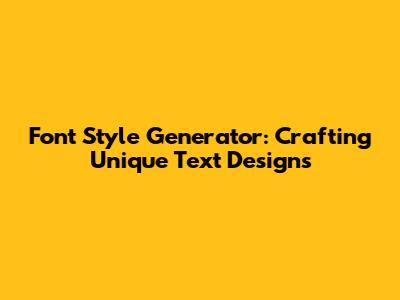
- Find a Generator: First things first, you'll need to find a font style generator online. There are tons of them out there, so do a quick search and pick one that looks appealing to you. Many are free and work right in your web browser, which is super convenient.
- Enter Your Text: Once you've chosen your generator, you'll see a text input box. Just type in whatever text you want to stylize. This could be a phrase, a sentence, or even just a single word. Be creative!
- Browse the Styles: After you enter your text, the generator will instantly display it in a variety of different font styles. Scroll through the options and check out all the different ways your text can be transformed. You'll likely see everything from fancy cursive fonts to bold, quirky styles and even some with added symbols or effects.
- Copy and Paste: When you find a font style you like, simply copy the text. Most generators have a handy button that lets you do this with a single click. Then, paste the stylized text wherever you want to use it. This could be in your social media bio, a post, a website heading, or even a message to a friend.
- Experiment and Have Fun: The beauty of these generators is that you can experiment to your heart's content! Try out different styles, play around with different words and phrases, and see what you come up with. Don't be afraid to get creative and explore the possibilities! The more you play around, the better you'll become at finding the perfect font styles for your needs.
- Cool Font Generator: This is a classic and reliable choice. It offers a wide variety of font styles and is super easy to use. Just type in your text and see it transformed instantly. The interface is clean and straightforward, making it perfect for beginners.
- Stylish Text Generator: This generator is a great option if you're looking for something with a bit more variety. It offers tons of styles, including some with unique symbols and decorations. It's also super easy to copy and paste the stylized text.
- Lingojam: This is another popular choice, known for its extensive collection of font styles and its user-friendly interface. It's great for both basic and more advanced text transformations.
- Fontify: Fontify is a very versatile and easy-to-use tool. It offers an impressive array of different font styles, as well as the ability to customize your text even further.
- YayText: YayText is another simple, yet powerful generator. It provides a good selection of creative font styles to choose from.
- Social Media: This is probably the most popular use case. Use stylized text in your social media bios, post captions, and comments to make your profile stand out and grab attention. Create eye-catching headlines, highlight important information, or simply add some flair to your posts. Platforms like Instagram, Facebook, Twitter, and TikTok are perfect for experimenting with different font styles.
- Website Design: If you're a website owner, you can use font style generators to create unique headings, subheadings, and calls to action. This can help you create a more visually appealing website and improve user engagement. Be sure to consider your website's overall design and branding when choosing font styles.
- Branding and Marketing: Font style generators are a great tool for building a strong brand identity. You can create custom text for your logo, social media graphics, and marketing materials. This helps establish brand recognition and makes your business more memorable.
- Email Signatures: Add a touch of personality to your emails by using a stylized font in your signature. This can make your emails more engaging and memorable.
- Creative Writing: Use font style generators to create unique titles, chapter headings, or character names for your stories. This can add an extra layer of creativity to your writing.
- Gaming: Gamers can use stylized fonts for their usernames, clan tags, and in-game chat to show off their personality and stand out from the competition.
- Personal Use: Simply have fun! Use font styles to create personalized greetings, messages, and social media posts for your friends and family. It's a great way to express yourself and add some fun to your online interactions.
- Choose the Right Font for the Occasion: Different font styles convey different moods. Consider the context of your text when choosing a style. A playful font might be great for social media, while a more elegant font might be better for a professional email signature.
- Keep it Readable: While it's tempting to go wild with super fancy fonts, make sure your text is still easy to read. Overly complicated fonts can be difficult to decipher, which can defeat the purpose of grabbing attention.
- Use Font Styles Sparingly: Don't overuse font styles. Too much stylized text can be overwhelming and make your content look cluttered. Use it strategically to highlight important information or add a touch of flair.